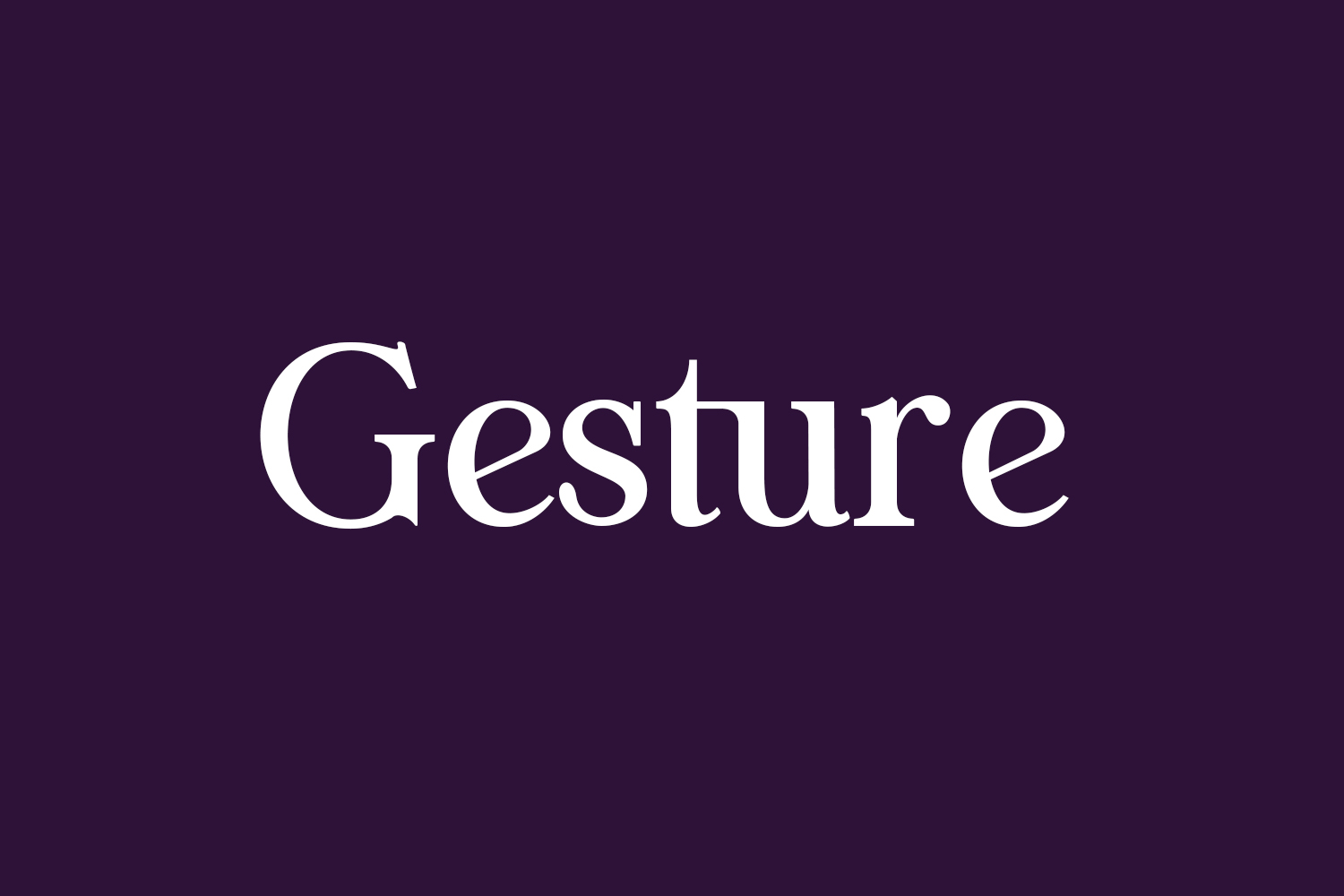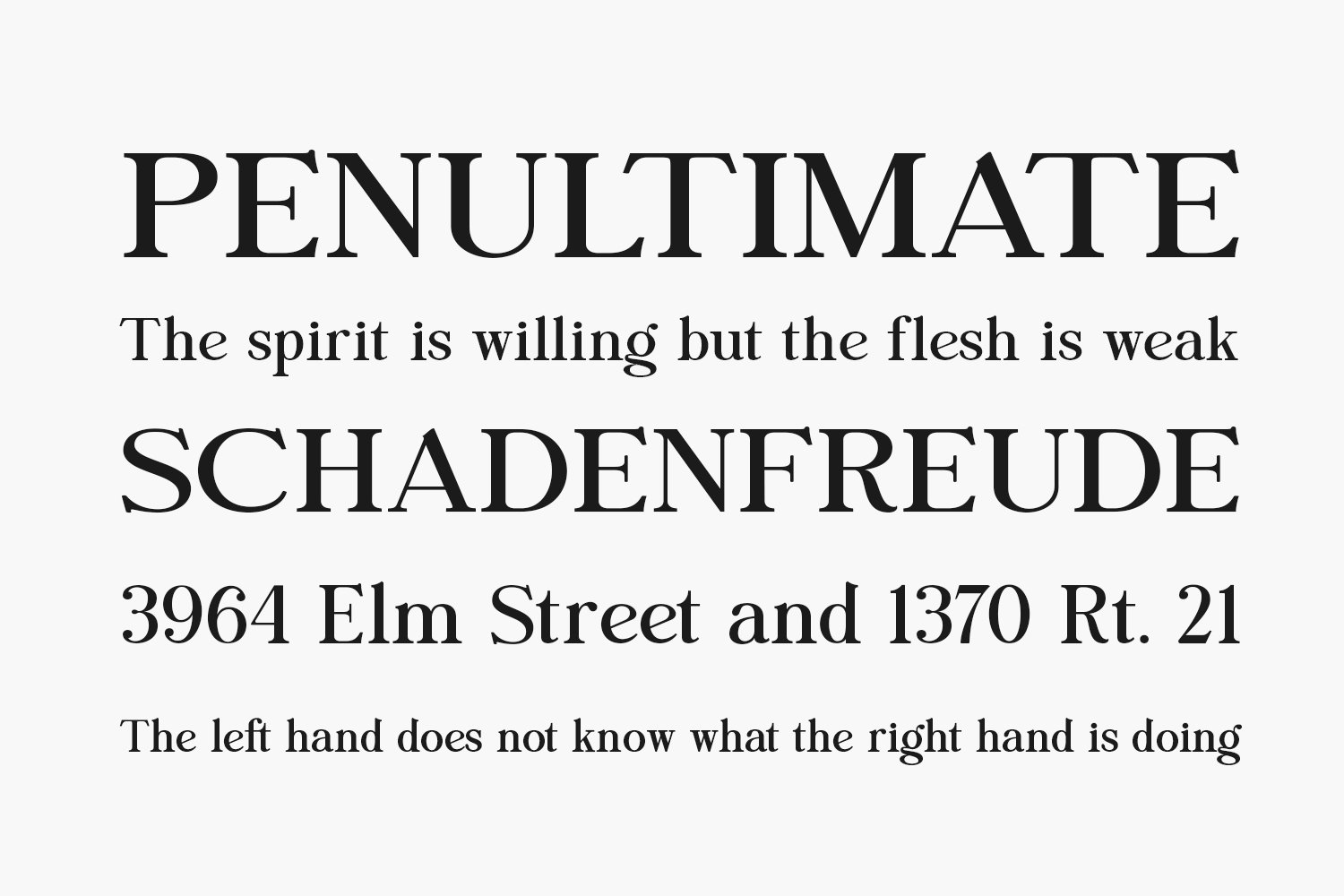
Unveil the allure of Gesture Free Font, a serif font that effortlessly blends style and delicacy. This exquisite typeface is the perfect choice for a wide range of projects, including logos, branding projects, labels, photography, watermarks, special events, and any other endeavor that craves a touch of beauty.
Let Gesture take center stage in your creative process, infusing your projects with a sense of elegance and refinement. With its stylish design and dainty details, this font will elevate your work, leaving a lasting impression on your audience. Gesture Free Font is free for personal use only. Please purchase the full version for commercial use.
Designed by Pen Culture